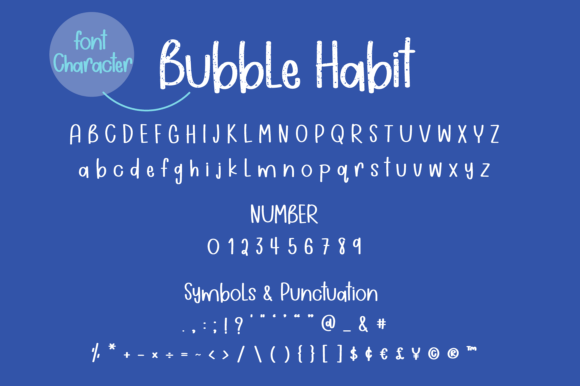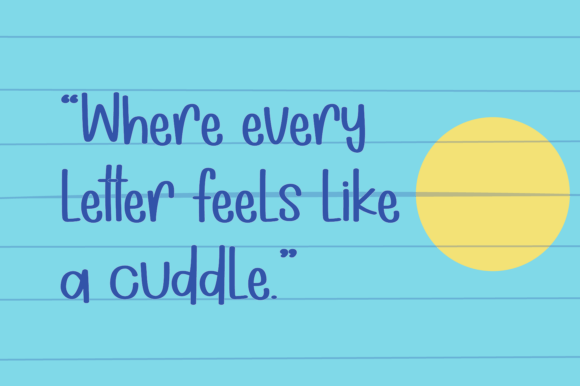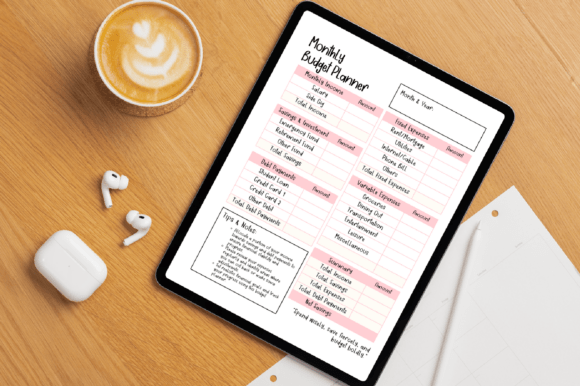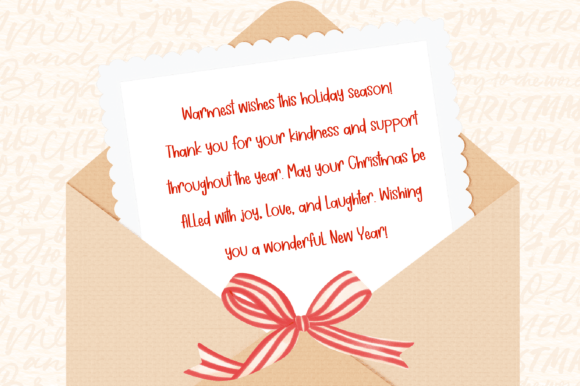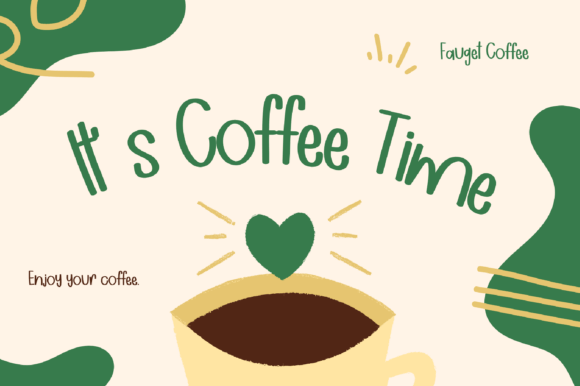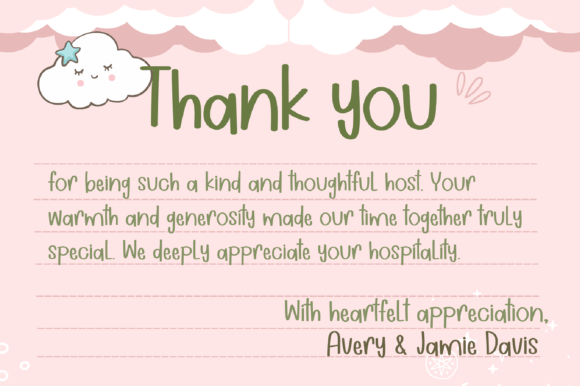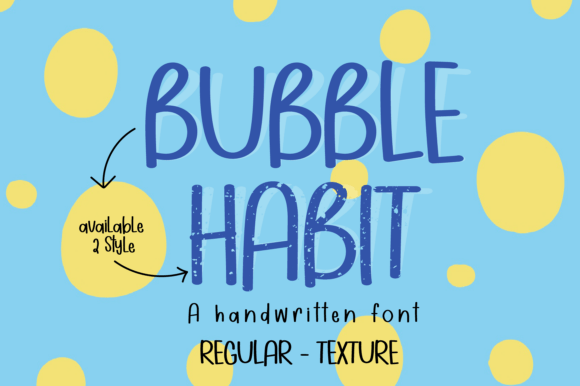
Discover the Whimsical World of Bubble Habit Font
Have you ever been in the middle of a design project, and suddenly, you just can’t seem to find the right font? I recall a particularly frustrating moment when I was working on a children’s book project. My client wanted a font that was playful, fun, and engaging, but everything I tried seemed to fall flat. That’s when I stumbled upon Bubble Habit, a charming handwritten font that has since become a staple in my design toolkit.
A Personal Review of Bubble Habit
Bubble Habit has been a game-changer for my designs. Here’s what I love about it:
- ✨ Playful Personality: Every character in Bubble Habit exudes a playful personality that’s perfect for designs that need a touch of whimsy.
- ✅ Versatility: This font is incredibly versatile and can be used for a wide range of projects, from logos and digital planners to journal entries and children’s projects.
- 💫 Enchanting Bubble-Like Shapes: The bubble-like shapes of each character add a touch of magic to any design.
While Bubble Habit is an amazing font, it’s not without its quirks:
- 🤔 Limited Use in Formal Designs: Bubble Habit is best suited for informal designs. It may not be the best choice for formal projects that require a more professional tone.
- ⚠️ Occasional Kerning Issues: I’ve noticed that the kerning can be a bit off in certain situations, but this is relatively rare and can be easily adjusted.
How to Use Bubble Habit in Your Designs
- Use the OpenType features, glyphs, and stylistic alternates to customize your text and make it more visually appealing.
The Story Behind Bubble Habit
Bubble Habit was designed by a team of creatives who wanted to create a font that would bring a touch of whimsy and wonder to digital designs. Inspired by the playful and imaginative world of children’s books, Bubble Habit is the perfect font for designers who want to add a touch of magic to their work.
| Font Name | Bubble Habit Font |
| Author | MTK Studio |
| What is Bubble Habit font? | Bubble Habit is a charming handwritten font designed to bring a touch of whimsy and wonder to digital designs. |
| What is Bubble Habit best used for? | Bubble Habit is best used for informal designs, such as children’s projects, digital planners, and journal entries. |